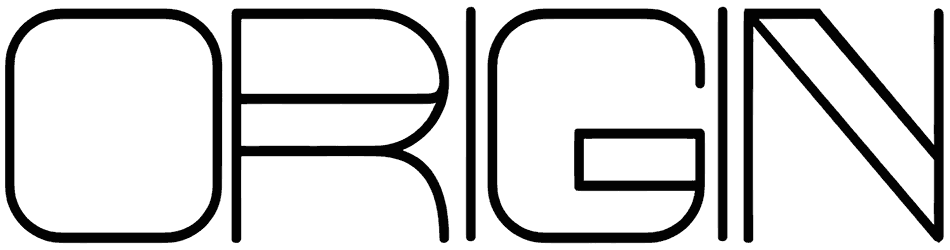
Origin Font
Origin is a modern sans serif font that carries a feeling of elegance, modernity, dynamism, or fierce, thus it would look perfectly fit on a wide range of graphic content like product packaging, business cards, logos, bo…
Origin is a modern sans serif font that carries a feeling of elegance, modernity, dynamism, or fierce, thus it would look perfectly fit on a wide range of graphic content like product packaging, business cards, logos, book covers, and magazines. This all-caps geometric font can be really influential in grabbing the attention of the audience, so we strongly recommend you not overlook this useful masterpiece.